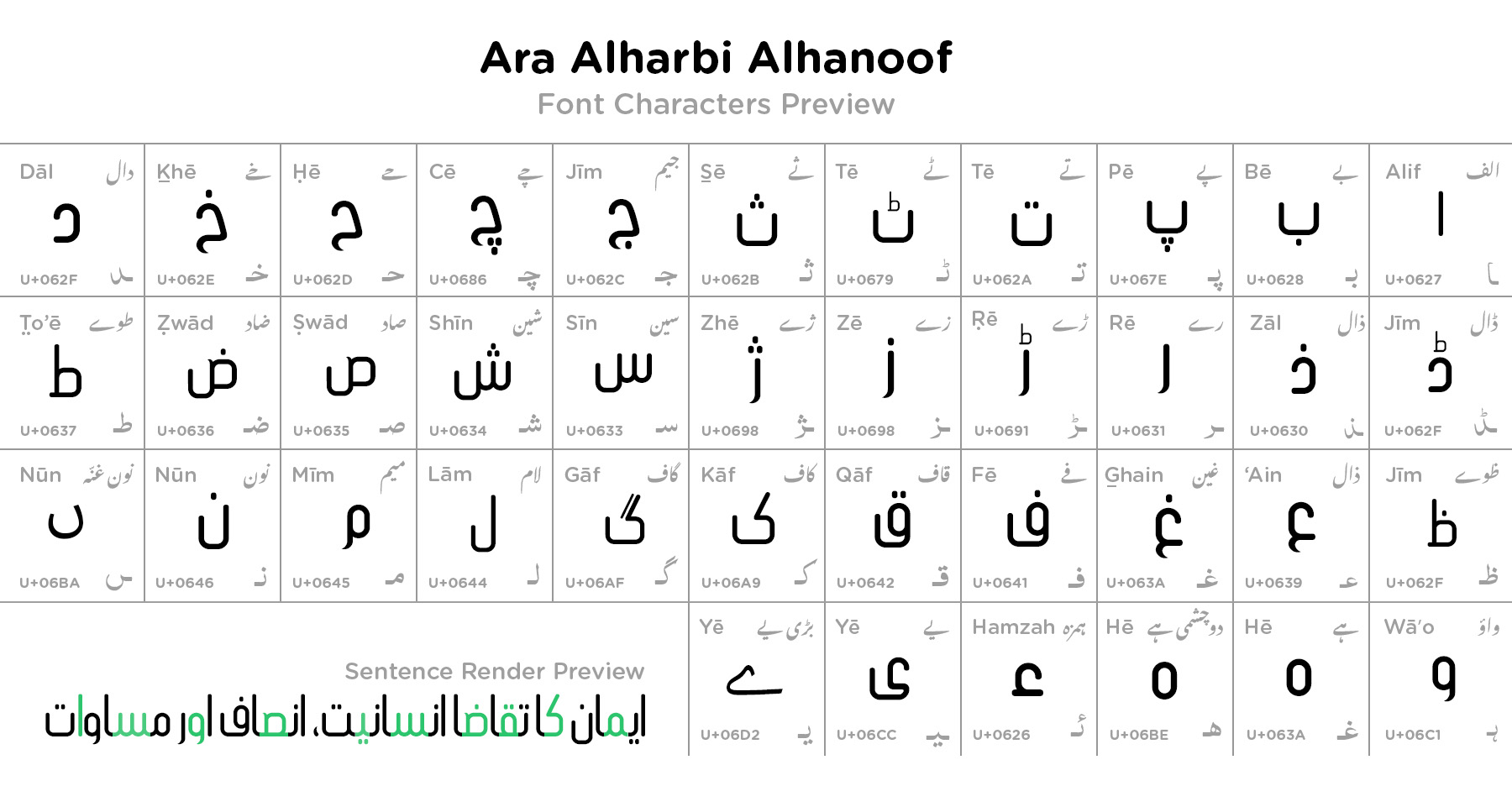
Ara Alharbi Alhanoof is a modern and stylish font that was created by Abdullah Naser Alharbi. It was released on August 7, under the trademark of Abdullah Naser Alharbi. The font exhibits a minimalistic design with clear lines and well-defined shapes. It maintains proportional spacing between characters that ensures clarity and uniformity. The strokes are smooth and moderately thick that gives a balanced and polished appearance. The curves of this font are well-defined and edges are rounded. All these things give the font a soft and professional look. If you look into its characters, they have a geometric influencer. Al Alharbi Alhanoof is ideal for digital designs, branding, advertising, and publications. It works well in corporate logos, packaging, and official documents due to its clean and professional style. You can also use it in event invitations, posters, and social media posts, that add a modern and Arabic aesthetic. Its smooth curves, clean strokes, and excellent readability make it suitable for a wide range of uses.